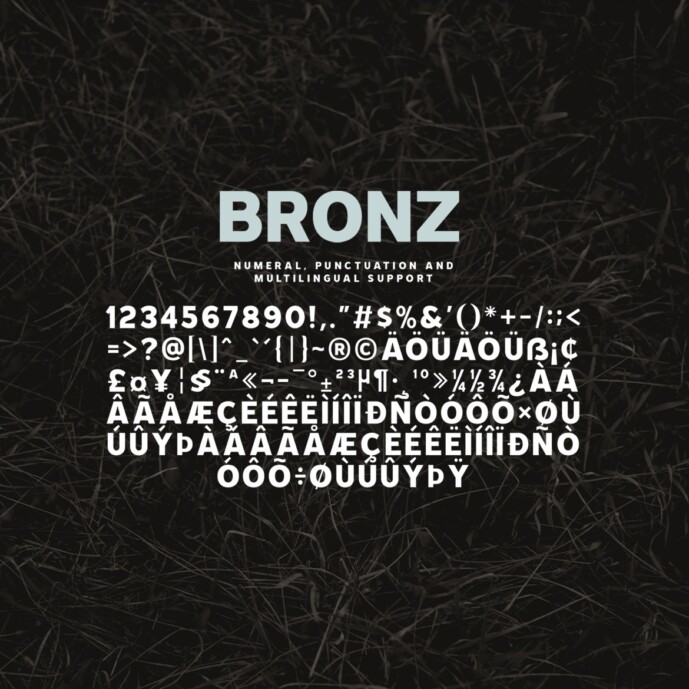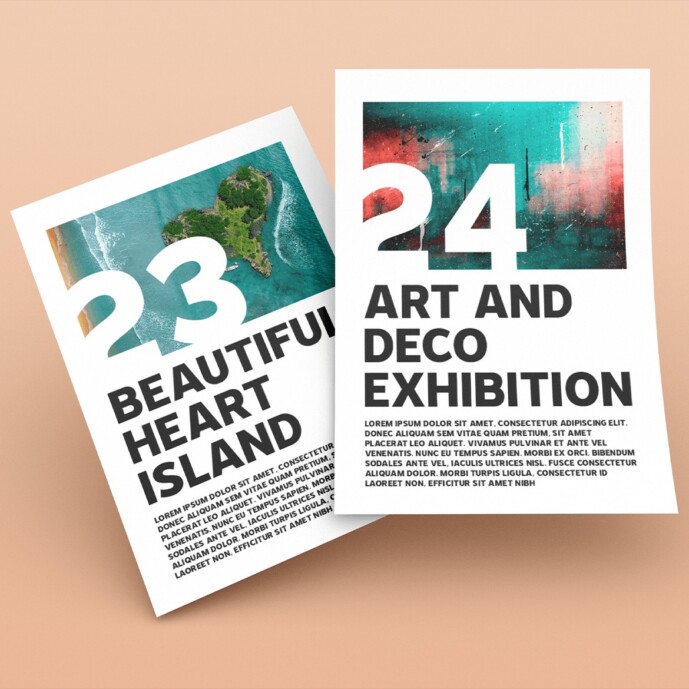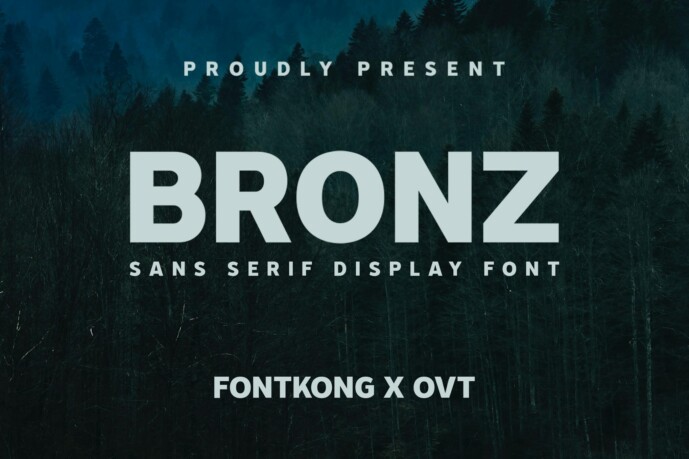
Bronz Font
Bronz Font, a sans serif display font designed to make a powerful impact with its bold simplicity and modern appeal. Ideal for graphic designers, advertisers and creatives looking for a clear and striking typographic solution, Bronz brings clarity and style to each character.